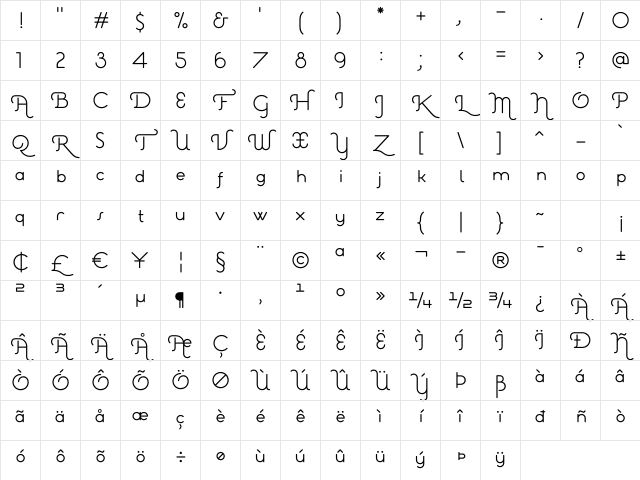
EstiloScript Regular
Foundry: Dino dos Santos _ DSType
Design Context for EstiloScript
EstiloScript flows with the natural rhythm of handwritten lettering, making it ideal for designs that call for warmth and personal expression.
Font Pairing: Combine EstiloScript with a simple geometric sans for maximum contrast - the tension between flowing curves and clean structure is a classic typographic pairing.
Pro Tip: Use EstiloScript for short runs of text - names, titles, or taglines. Extended body copy in script faces tires the eye quickly.